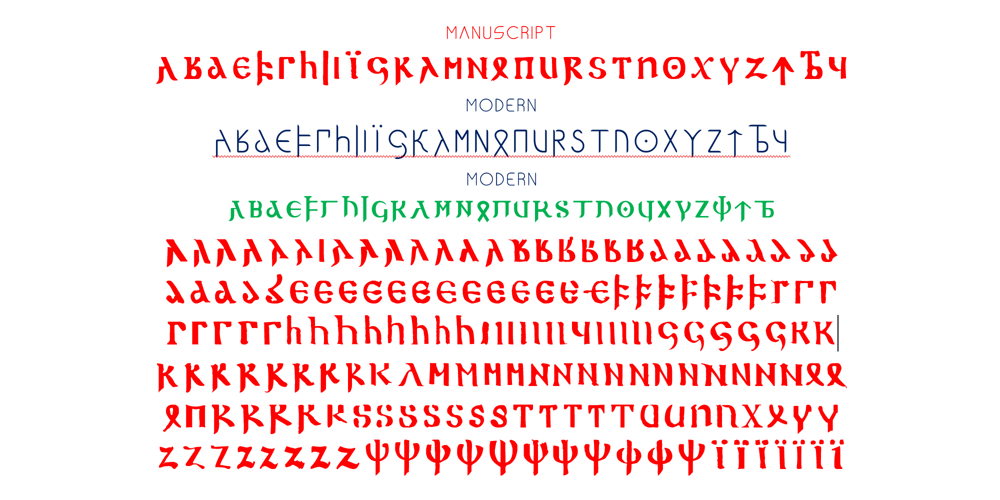
Ongunkan Gothic Bold Modern
Ongunkan Gothic Bold Modern font
Ongunkan Gothic Bold Modern Font Family was designed by Osman Nuri ALKAN and published by Runic World Tamgacı. Ongunkan Gothic Bold Modern contains 1 styles and family package options. I completed the alphabet of the Gothic language in the Codex Argenteus manuscript, which took me approximately 3 months. Although there was a Unicode block assigned to the Gothic alphabet, the font caused a problem. When I added Unicode it constantly created an error. So I created a solution by removing the Unicode block from the font. These 3 fonts were created based on Latin. The manuscript is formatted in Modern thick and Modern thin. There are dozens of different spellings of letters in handwritten font.Friends who want to change the fonts can contact me.The Codex Argenteus (Latin for “Silver Book/Codex”) is a 6th-century illuminated manuscript, originally containing part of the 4th-century translation of the Christian Bible into the Gothic language. Traditionally ascribed to the Arian bishop Wulfila, it is now established that the Gothic translation was performed by several scholars, possibly under Wulfila’s supervision. Of the original 336 folios, 188 including the Speyer fragment discovered in 1970 have been preserved, containing the translation of the greater part of the four canonical gospels. A part of it is on permanent display at the Carolina Rediviva building in Uppsala, Sweden, under the name “Silverbibeln” (i.e. “The Silver Bible”).